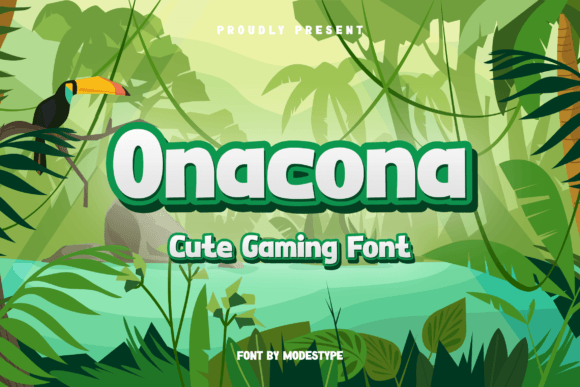
Meet the Onacona Font, a delightful display font family, exquisitely crafted for the kingdom of education and creative expression. This captivating sans serif font dances with a playful cartoonish charm, making every letter an artistic wonder. With its remarkable clarity and legibility, Onacona ensures that your words shine, grabbing the attention of young and old, students and teachers alike. Engage your audience with the inviting style of this font, where the lines flow smoothly, and the characters feel like trusted companions.
Picture your school projects, online games, and event posters adorned with the whimsical touch of Onacona. Watch as your storybooks come alive, carrying readers into worlds of wonder and imagination. Elevate your social media presence with stunning page covers that radiate creativity and personality. Bring your YouTube titles and thumbnails to life, captivating viewers with a visual treat that demands their attention. From school supplies and posters to movie titles and beyond, Onacona is your versatile companion, adding an enchanting spark to every creative endeavor.
Dive into a world where learning and fun collide. Let Onacona be your guiding light, inspiring young minds to explore the realms of knowledge with newfound enthusiasm. This font is not just a tool; it's a magical key that unlocks the doors to imagination and unleashes creativity. Embrace the playful spirit of Onacona and embark on a journey where education becomes an adventure, and every project a masterpiece.